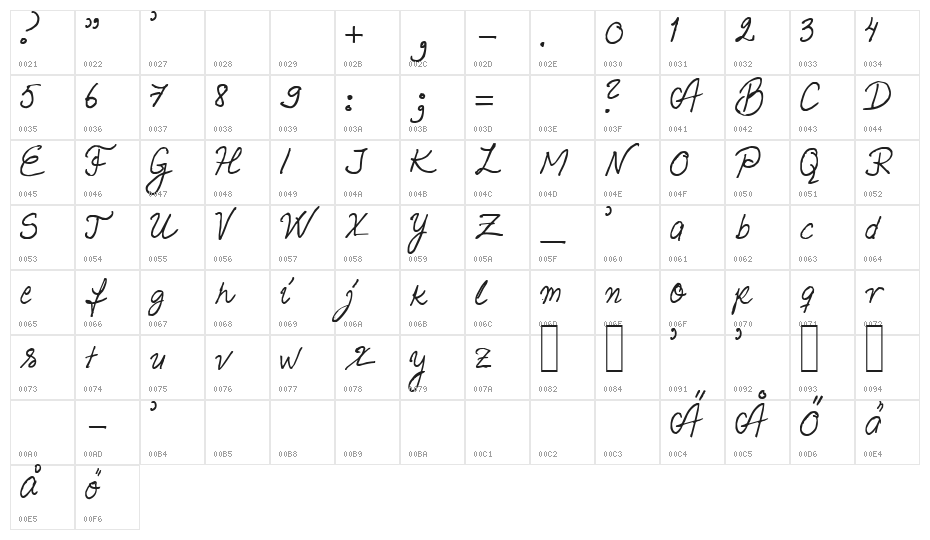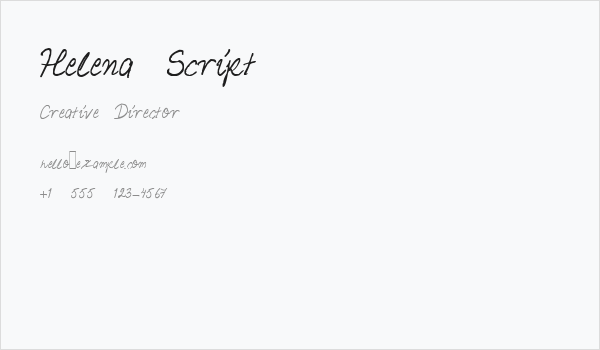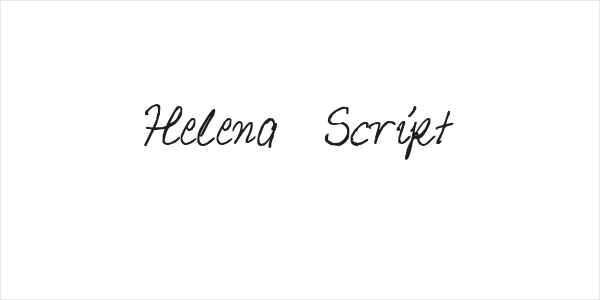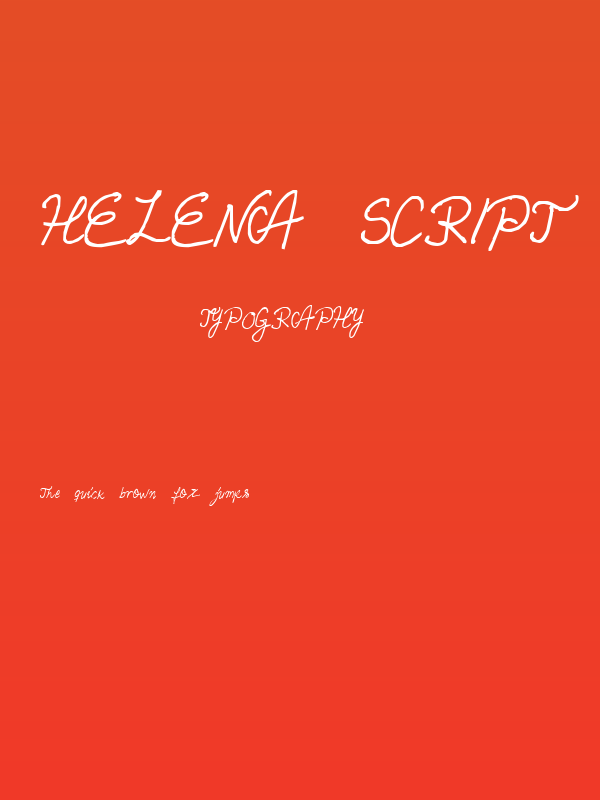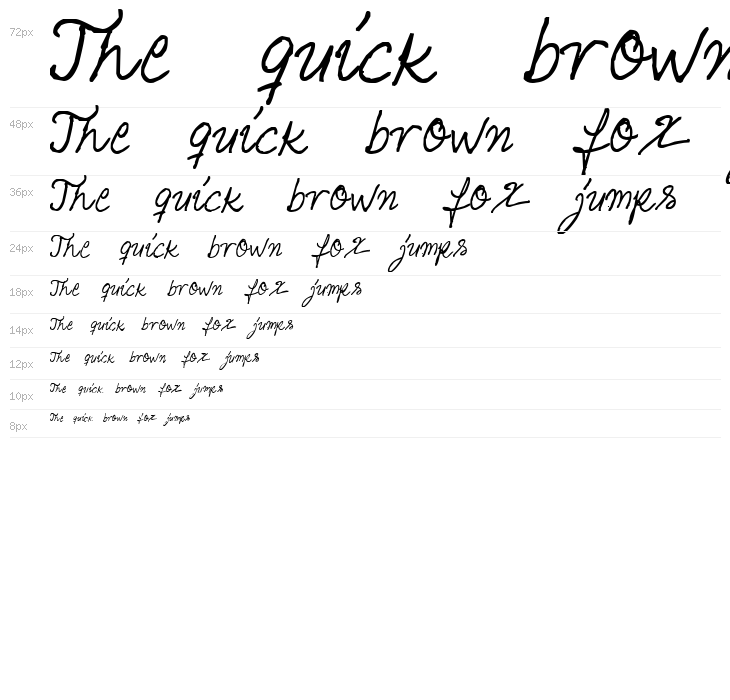
Helena Script Font
Helena Script Description
This elegant script font features a fluid, cursive style with smooth, flowing lines that mimic the natural motion of handwriting. The uppercase letters are slightly more ornate, with graceful loops and curves, while the lowercase letters maintain a consistent, connected flow. The numbers are designed to match the script's overall aesthetic, offering a cohesive look. The special characters are crafted to blend seamlessly with the letters, enhancing the font's versatility. This font exudes a sense of sophistication and charm, making it ideal for projects that require a personal touch.
| Overall Style | Elegant, Sophisticated |
| Proposed Projects | Ideal for wedding invitations, greeting cards, personal branding, and elegant packaging. |